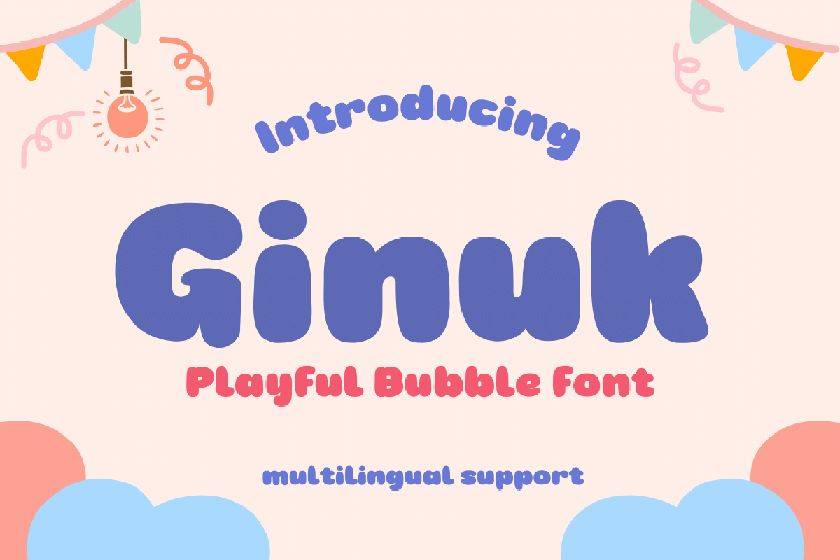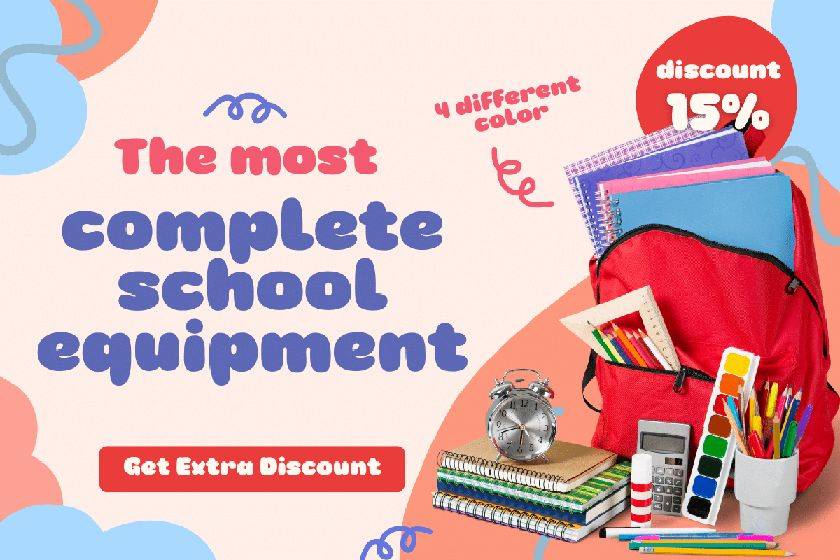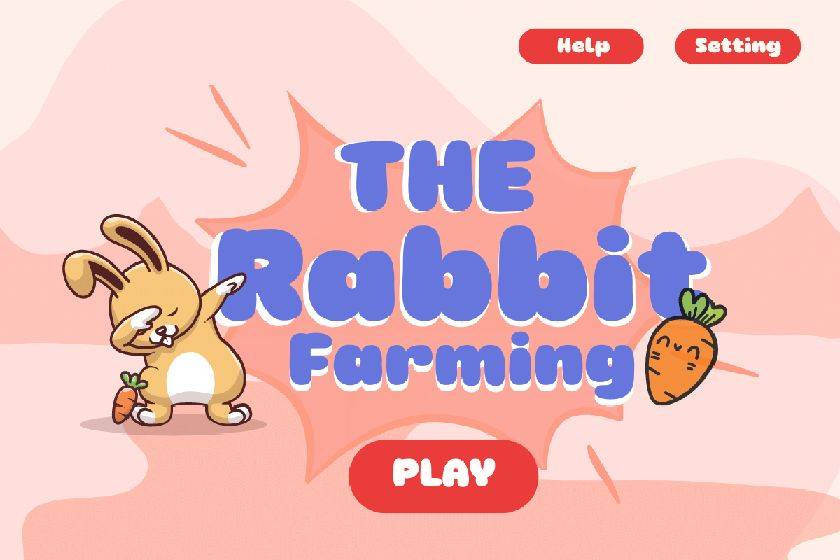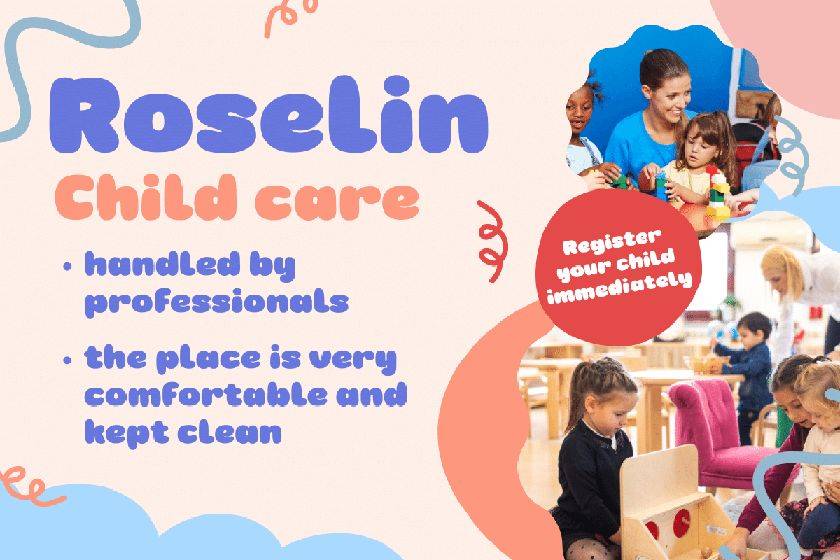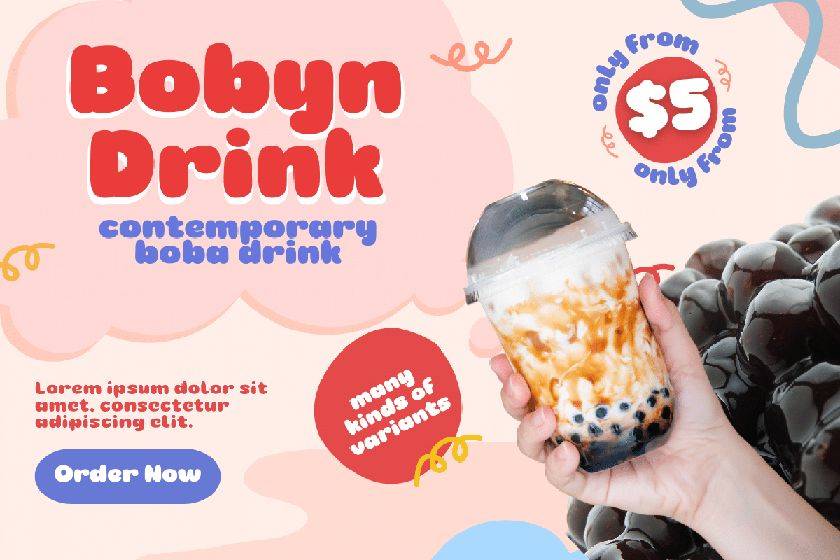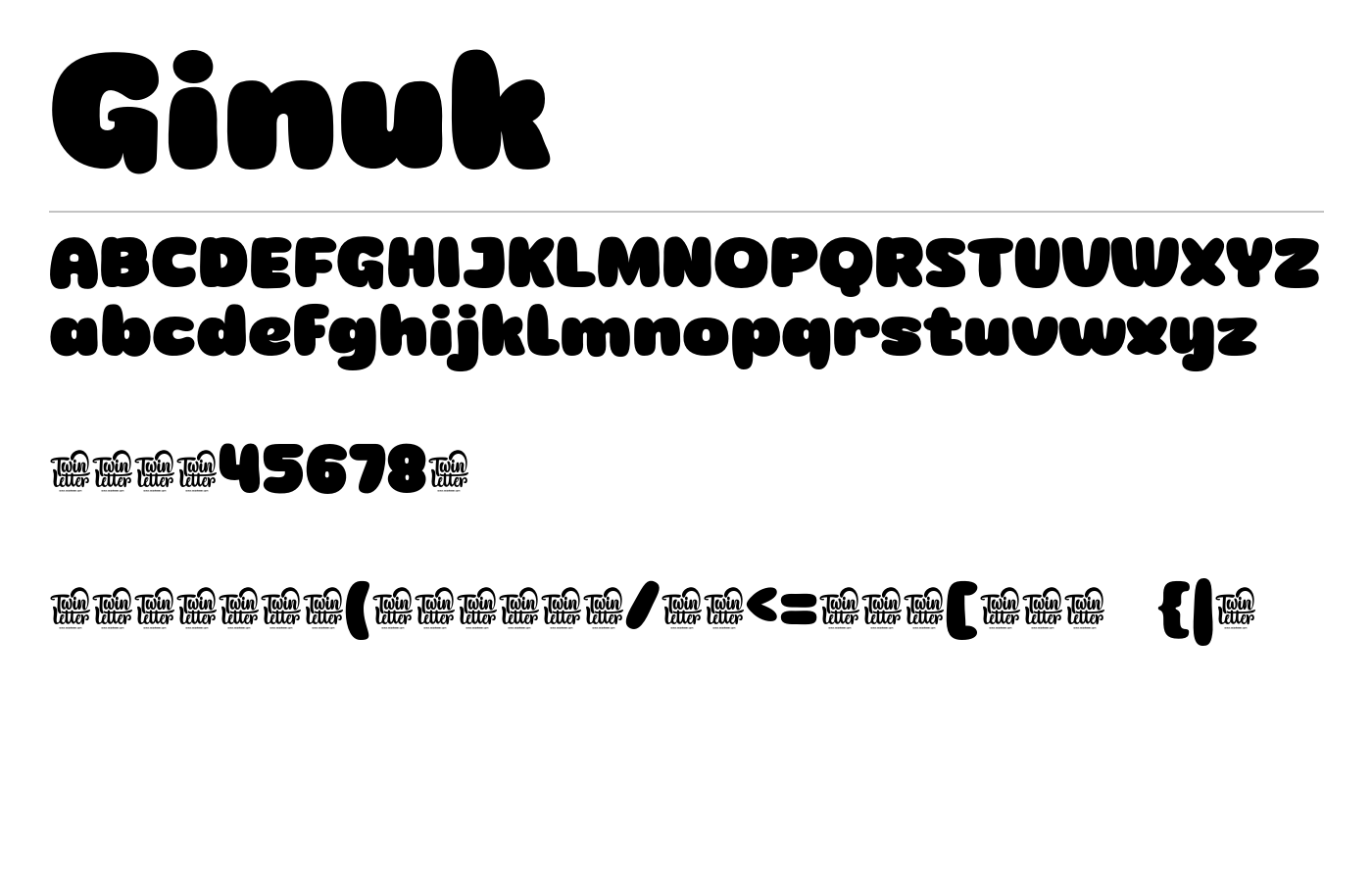
Ginuk is a bold and playful rounded sans serif font characterized by its thick, soft letterforms and generous spacing that create a friendly and approachable feel. Its bubbly, smooth curves and consistent stroke weight make it ideal for casual branding, children's content, and fun headlines where a warm and inviting tone is desired. This font works best in large sizes for eye-catching logos, posters, or packaging that aim to convey charm and friendliness.
Ginuk Font
About Ginuk Font